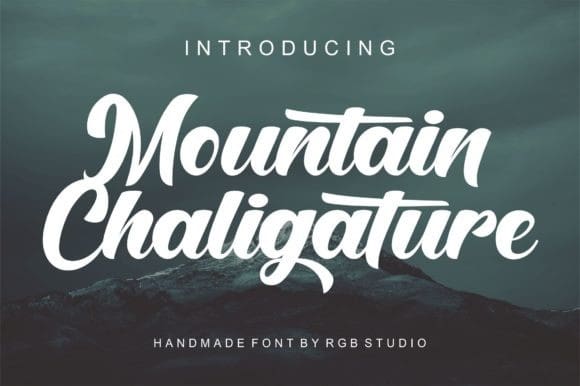
Mountain Chaligature Font
Mountain Chaligature Font is a modern and bold script font. Each letter has a unique and beautiful touch, which will bring your designs to life! Add it confidently to your projects, and you will love the results.